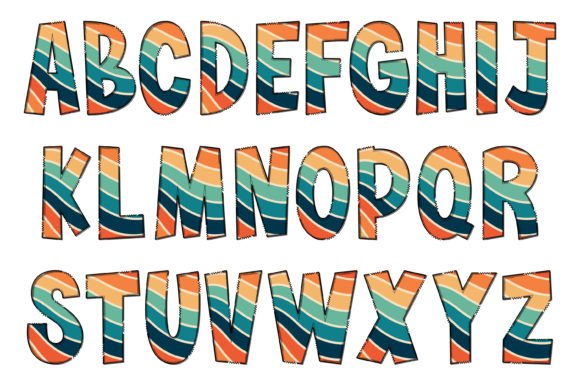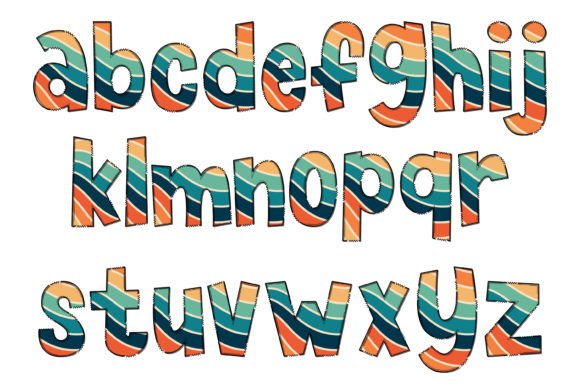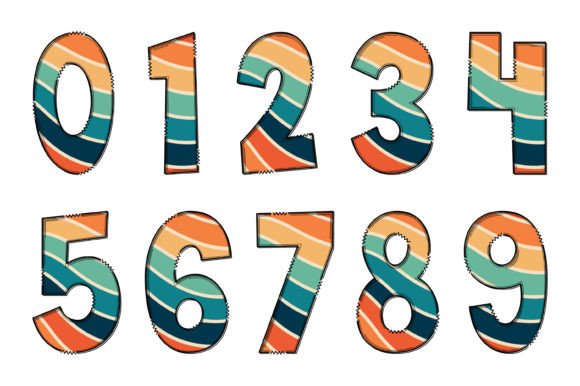
Introduction to Retro Line Font
Do you remember the thrill of designing a party flyer for a friend’s birthday bash? The excitement of choosing the perfect font to capture the essence of the night? For many designers, the right font can make all the difference between a design that’s just okay and one that’s truly unforgettable. That’s where the Retro Line Font comes in – a lively and vibrant color font that’s sure to add a touch of retro nostalgia to your designs.
With its playful curves and dynamic lines, the Retro Line Font is the perfect addition to any creative project. Whether you’re designing social media posts, album covers, or party flyers, this font will bring a fun and funky twist to your work. And the best part? It’s available for free download, making it an invaluable design resource for designers on a budget.
So why is the Retro Line Font so valuable for designers? For one, its high quality design ensures that it looks great on a transparent background, making it perfect for social media posts and other digital designs. With its unique and eye-catching style, the Retro Line Font is sure to elevate your designs and make them stand out from the crowd.
Key Features of Retro Line Font
- Unique Retro aesthetic with a distressed, vintage feel, perfect for creative projects that require a nostalgic touch.
- Perfect for use in a variety of creative projects, including graphic design, digital art, and typography-based designs.
Honest Review: Retro Line Font
I recently had the chance to work with the Retro Line Font, and I must say it’s been a delightful experience. As a designer, I’m always on the lookout for high-quality design resources to enhance my creative projects. The Retro Line Font definitely delivers in this department.
- ✨ High-quality design: The font is clean, crisp, and well-designed, making it perfect for a variety of projects.
- ✨ Versatile: The Retro Line Font can be used for a range of creative projects, from branding and logos to digital art and graphics.
- ⚠️ Limited character set: While the font is available for free, the character set is somewhat limited, which may be a concern for those who need to use it for extensive text-based projects.
- ⚠️ Not suitable for all projects: The font’s retro aesthetic may not be suitable for all projects, so it’s essential to consider your design goals before using it.
Overall, I’m impressed with the Retro Line Font, and I think it’s a valuable addition to any designer’s toolkit. Just be sure to consider its limitations before using it in your creative project.
Design Tips
To get the most out of the Retro Line Font, use it on a transparent background to create a clean and modern design aesthetic. Experiment with different font sizes and styles to achieve the desired look for your creative project.
The Retro Line Font is ideal for:
- Typography-based designs
Alternatives to Retro Line Font
1. P22 Underground
P22 Underground is a high-quality, distressed font ideal for creative projects that require a vintage touch. It features a transparent background, making it easy to use as a design resource. This font is perfect for designers who want to add a sense of nostalgia to their work.
Compared to Retro Line Font, P22 Underground has a more distressed and worn look, making it suitable for projects that require a stronger vintage feel. It’s available for free download, but be aware that some styles may require a paid license.
Great Vibes is a high-quality, script font that’s perfect for designers who want to add a touch of elegance to their creative projects. It features a transparent background and is available for free download. This font is ideal for projects that require a sense of sophistication and style.
Is the Retro Line Font suitable for designs requiring a transparent background?
Yes, the Retro Line Font includes a transparent background option, allowing you to create designs with a seamless and high-quality look. This feature is particularly useful for graphic designers working on projects that require a transparent or semi-transparent background.